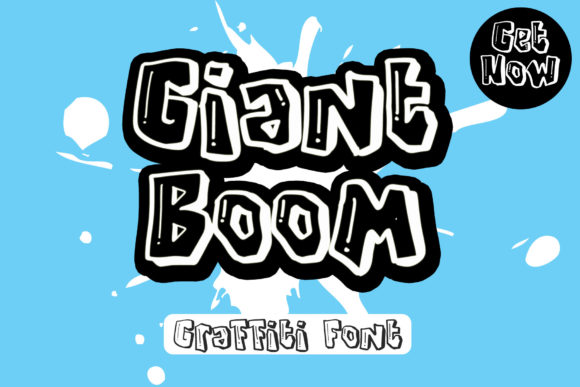
Unleash the audacious energy of Giant Boom, a graffiti-styled display font that bursts with urban swagger and edgy charm. This remarkable creation from Letterafa Studio is a masterpiece tailor-made for bold designs that demand attention.
With its striking, outlined characters, Giant Boom commands a presence that's impossible to ignore. Its rough-textured vibe adds an authentic, lived-in feel, perfect for capturing the raw essence of urban culture. This font is a game-changer for designers seeking to make a statement, whether it's on posters, flyers, social media graphics, or any project craving a touch of urban grit.
Step into a world where creativity knows no bounds, where Giant Boom's dynamic style propels your designs to new heights. Its versatility knows no limits, effortlessly adapting to a spectrum of projects, from eye-catching posters to captivating social media posts. Unleash your imagination and watch as Giant Boom transforms your words into vibrant, unforgettable expressions of urban artistry.
Giant Boom is more than just a font; it's an attitude, a reflection of your bold and unapologetic style. Its unique character set empowers you to craft messages that resonate with your audience, leaving an indelible mark that lingers long after the last word is read.
Don't settle for ordinary fonts. Embrace the transformative power of Giant Boom and witness the remarkable difference it brings to your designs. Let your creativity soar as you harness the energy of this urban masterpiece, creating designs that captivate, inspire, and leave a lasting impression.